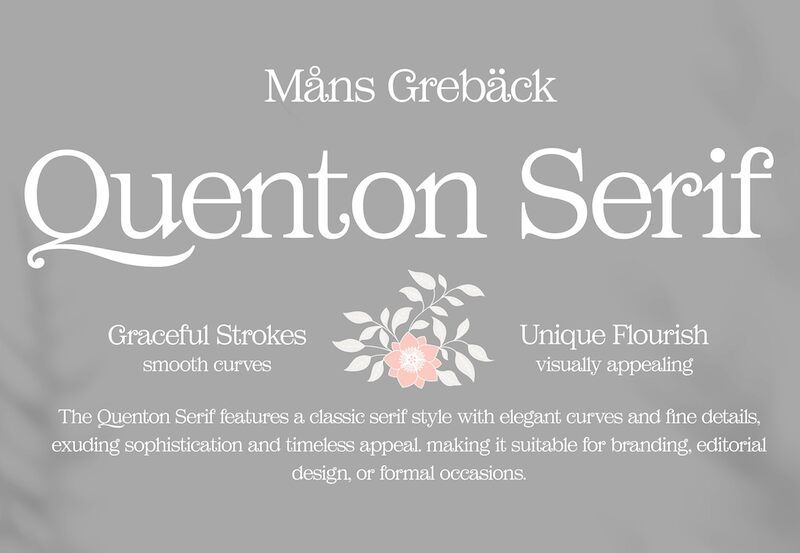
Quenton Serif font is by Mans Greback and represents an elegant font face with decorative serifs. It holds a classic, sophisticated refined design with a traditional aesthetic that takes both the letters and numbers to a new level. Uniqueness and versatility are at hand with well-designed glyphs that fall perfectly on the baseline.
Quenton is free, stylish, and ready to use in branding, identity presentations, advertisers for magazines or newspapers, packaging design in elements such as book covers or CD covers, posters for events such as exhibitions or musicals, printed items like t-shirts or business cards.
Quenton Serif is a sophisticated typeface with a friendly personality, making it suitable for a wide range of applications.